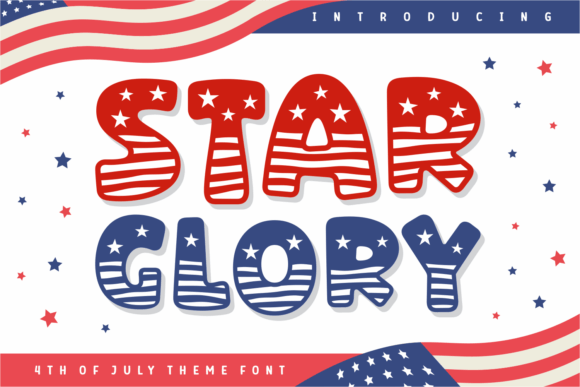
Introducing Star Glory Font: A Patriotic Typeface that Embodies American Spirit
The Star Glory Font is a unique and decorative typeface that beautifully incorporates the iconic American flag motif into its design. Each character is intricately crafted to evoke the patriotic spirit and symbolize the rich heritage and values associated with the United States. In this article, we’ll explore the features and uses of the Star Glory Font, and how it can be used to add a touch of national pride to your designs.
Design and Features of Star Glory Font
The Star Glory Font features an American flag motif that is expertly woven into the design of each letter. The stars, representing the states, are strategically placed throughout the font, while the stripes, symbolizing the original thirteen colonies, flow gracefully along the letterforms. This intricate design creates a visually striking and patriotic effect that is sure to capture attention.
Each character in the Star Glory Font is carefully crafted to ensure that the American flag motif is consistently applied throughout the font. The letters are designed to be highly legible, making it perfect for use in a variety of applications, from headlines and banners to signage and more.
Key Features of Star Glory Font
- American Flag Motif: The font features an American flag motif that is expertly woven into the design of each letter.
- Patriotic Spirit: The font is designed to evoke the patriotic spirit and symbolize the rich heritage and values associated with the United States.
- Stars and Stripes Design: The stars, representing the states, are strategically placed throughout the font, while the stripes, symbolizing the original thirteen colonies, flow gracefully along the letterforms.
- Highly Legible: The letters are designed to be highly legible, making it perfect for use in a variety of applications.
- Decorative Font: The Star Glory Font is a decorative font that is perfect for projects that celebrate American culture, history, or events.
Uses of Star Glory Font
The Star Glory Font is perfect for projects that celebrate American culture, history, or events such as Independence Day, Veterans Day, or Memorial Day. It can be used to create impactful headlines, banners, or signage, infusing a sense of national pride and identity into any design.
Some possible uses of the Star Glory Font include:
- Independence Day Celebrations: Use the Star Glory Font to create patriotic headlines, banners, and signage for Independence Day celebrations.
- Veterans Day Tributes: Use the font to create heartfelt tributes and memorials for Veterans Day.
- American History Projects: Use the font to add a touch of patriotism to projects about American history, such as brochures, posters, and presentations.
- Memorial Day Services: Use the font to create dignified and respectful signage and materials for Memorial Day services.
Benefits of Using Star Glory Font
The Star Glory Font offers a number of benefits for designers and artists looking to add a touch of patriotism to their work. Some of the benefits of using the Star Glory Font include:
- Unique and Eye-Catching Design: The font features a unique and eye-catching design that is sure to capture attention.
- Patriotic Spirit: The font is designed to evoke the patriotic spirit and symbolize the rich heritage and values associated with the United States.
- Highly Versatile: The font can be used in a variety of applications, from headlines and banners to signage and more.
- Easily Legible: The letters are designed to be highly legible, making it perfect for use in a variety of applications.
Tips for Using Star Glory Font
Here are a few tips for using the Star Glory Font in your designs:
- Use it Sparingly: The Star Glory Font is a decorative font that is best used sparingly to add a touch of patriotism to your designs.
- Pair it with Other Fonts: The font can be paired with other fonts to create a unique and visually striking effect.
- Experiment with Colors: The font can be used with a variety of colors to create a unique and eye-catching effect.
- Consider the Context: Consider the context in which the font will be used and adjust the design accordingly.
The Star Glory Font is a unique and decorative typeface that beautifully incorporates the iconic American flag motif into its design. Each character is intricately crafted to evoke the patriotic spirit and symbolize the rich heritage and values associated with the United States. With its highly legible design and versatile uses, the Star Glory Font is perfect for projects that celebrate American culture, history, or events.
- What is the Star Glory Font? The Star Glory Font is a decorative typeface that features an American flag motif.
- What is the Star Glory Font used for? The font is perfect for projects that celebrate American culture, history, or events such as Independence Day, Veterans Day, or Memorial Day.
- Is the Star Glory Font highly legible? Yes, the font is designed to be highly legible, making it perfect for use in a variety of applications.